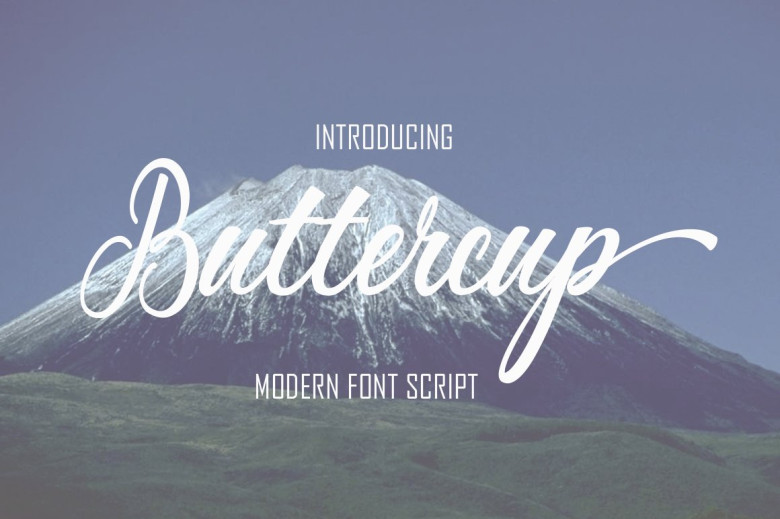
Buttercup Calligraphy Font
A modern new font script. Introducing Buttercup calligraphy font. Buttercup was designed by pollem.Co. Buttercup Calligraphy Font is modern script font, every single letters have been carefully crafted to make your text looks beautiful. With modern script style this font will perfect for many different project ex: quotes, blog header, poster, wedding, branding, logo, fashion, apparel, letter, invitation, stationery, etc.